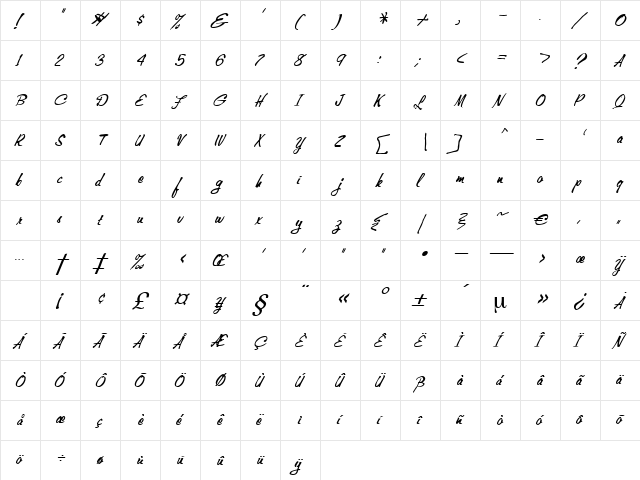
GenovevaItalic Regular
Design Context for GenovevaItalic Typeface
GenovevaItalic is a composed and adaptable typeface that performs quietly and consistently across a wide range of design contexts. The slanted form adds forward momentum and visual energy.